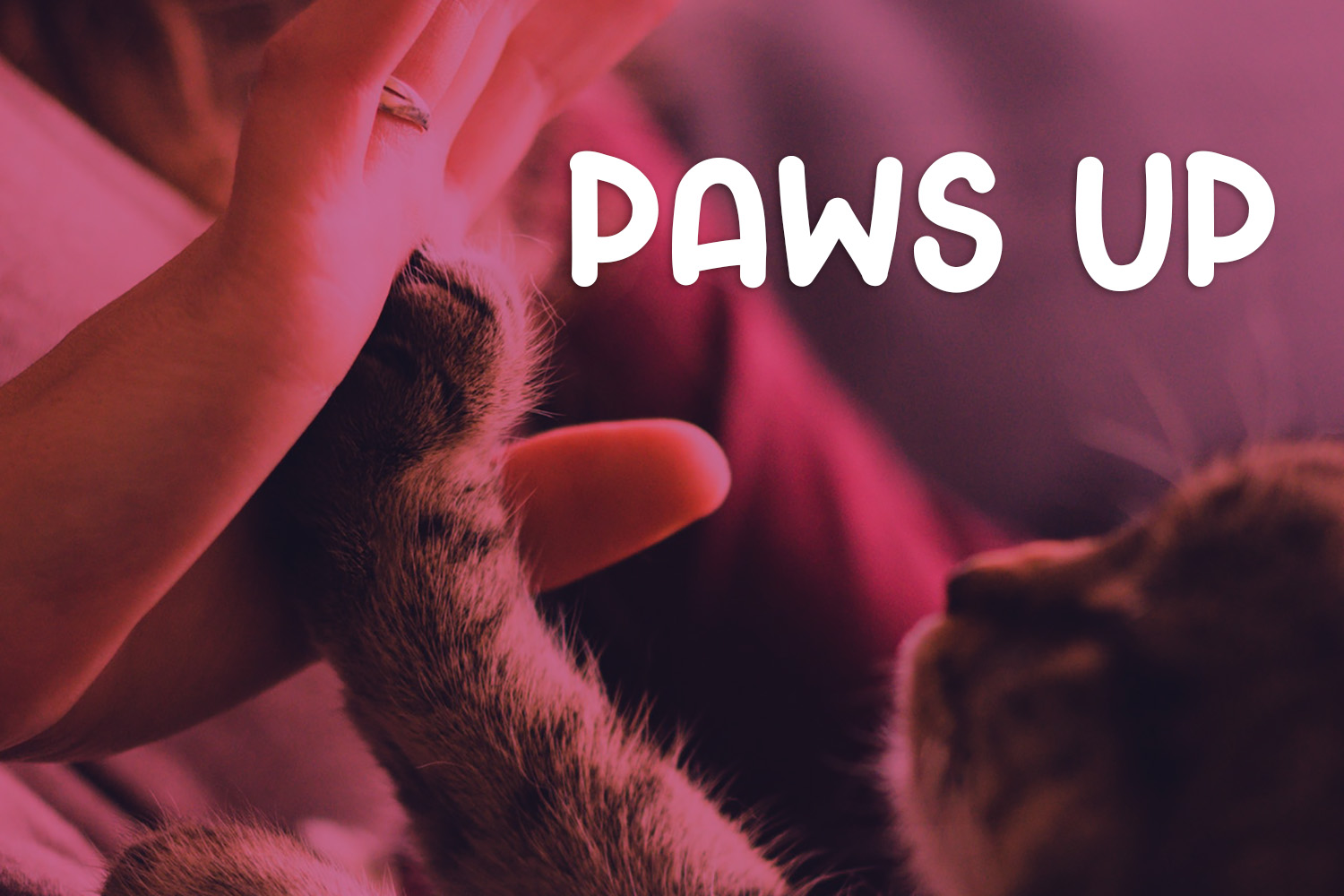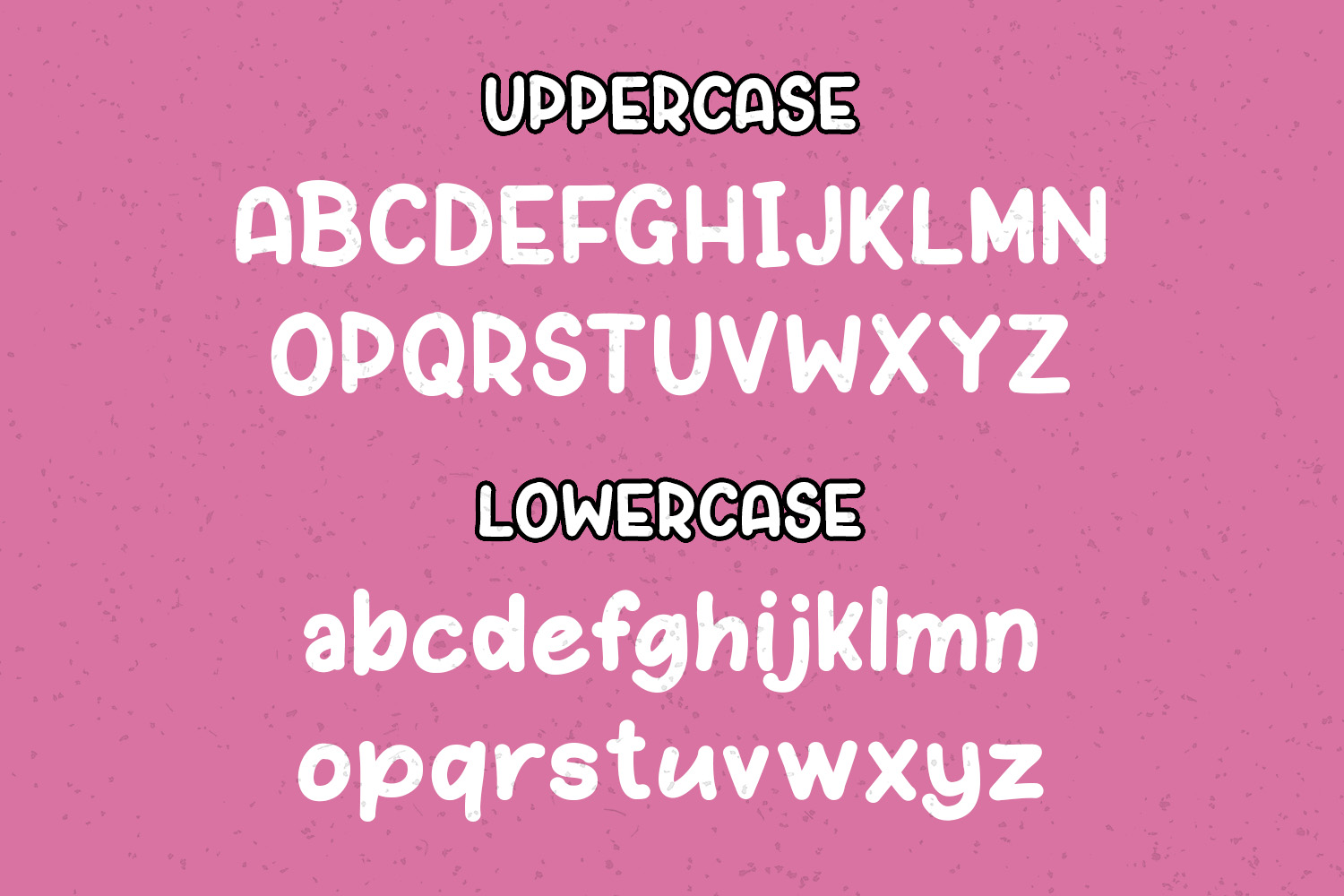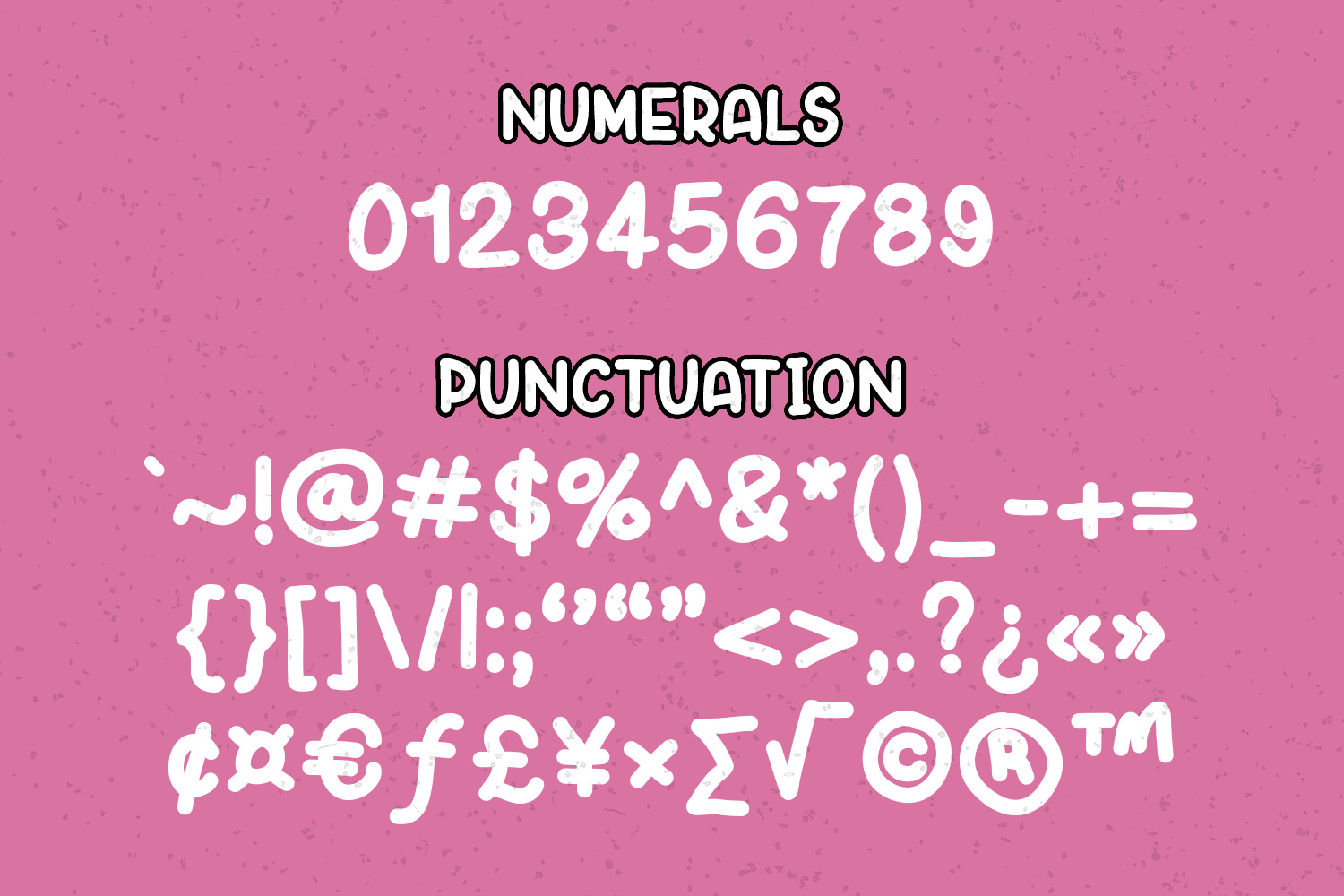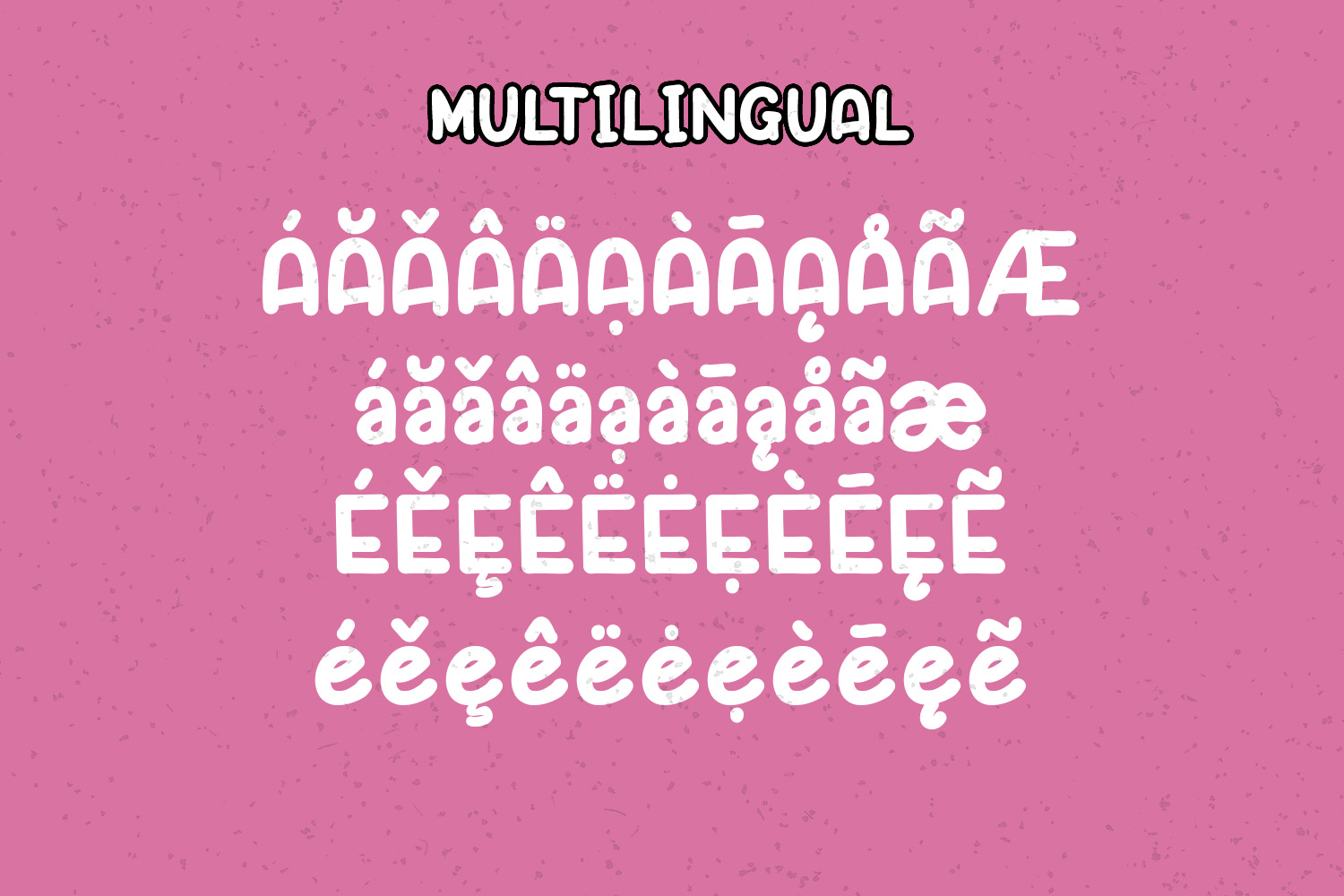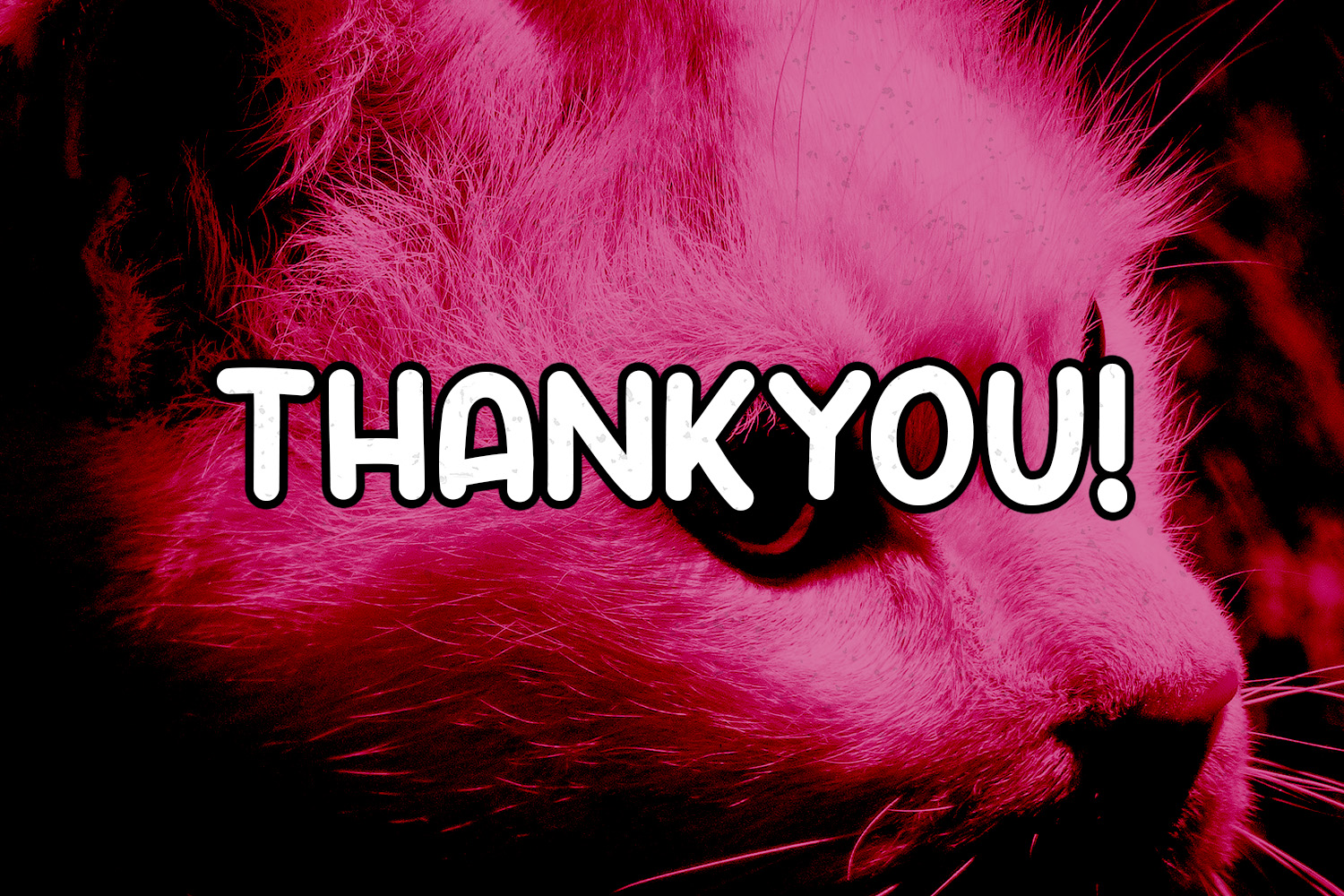
Crafty Cat Font: A Fun and Curious Font for Playful Designs
Are you a designer or crafter looking for a font that can add a touch of playfulness to your projects? Look no further than the Crafty Cat font! This fun and curious font is perfect for creating eye-catching designs that are sure to delight. In this article, we’ll take a closer look at the Crafty Cat font, its features, and how you can use it to take your designs to the next level.
What is Crafty Cat Font?
Crafty Cat is a digital font designed specifically for creative projects. Its playful and whimsical design makes it perfect for a wide range of applications, from crafting and scrapbooking to graphic design and digital art. The font is characterized by its bold lines, rounded edges, and endearing cat-like features, making it a great choice for designers and crafters who want to add a personal touch to their work.
Key Features of Crafty Cat Font
• Playful Design: Crafty Cat font features a playful design with bold lines and rounded edges, making it perfect for creating eye-catching designs.
• Curious Characters: Each character in the Crafty Cat font has a unique and curious design, adding a touch of personality to your text.
• Easy to Read: Despite its playful design, the Crafty Cat font is easy to read, making it perfect for use in a wide range of applications.
• Versatile: The Crafty Cat font can be used in a variety of projects, from digital art and graphic design to crafting and scrapbooking.
How to Use Crafty Cat Font in Your Designs
Using the Crafty Cat font in your designs is easy! Here are a few ideas to get you started:
• Crafting and Scrapbooking: Add a personal touch to your scrapbook pages and craft projects with the Crafty Cat font. Use it to create titles, captions, and other text elements that are sure to stand out.
• Graphic Design: Use the Crafty Cat font in your graphic design projects to add a touch of playfulness and personality. It’s perfect for creating logos, brochures, and other marketing materials.
• Digital Art: The Crafty Cat font is a great addition to any digital art project. Use it to create titles, captions, and other text elements that add a touch of whimsy to your artwork.
Tips for Getting the Most Out of Crafty Cat Font
Here are a few tips for getting the most out of the Crafty Cat font:
• Experiment with Colors: The Crafty Cat font looks great in a variety of colors. Experiment with different colors and combinations to find the one that works best for your design.
• Mix and Match: Don’t be afraid to mix and match the Crafty Cat font with other fonts and design elements. This can help create a unique and eye-catching design.
• Use it Sparingly: While the Crafty Cat font is playful and fun, it can be overwhelming if used too much. Use it sparingly to add a touch of personality to your design without overwhelming the viewer.
Font Name Crafty Cat Font
Author Kristy Hatswell
In conclusion, the Crafty Cat font is a fun and curious font that’s perfect for designers and crafters who want to add a touch of playfulness to their projects. With its bold lines, rounded edges, and endearing cat-like features, it’s sure to delight. Whether you’re working on a crafting, scrapbooking, graphic design, or digital art project, the Crafty Cat font is a great choice. So why not give it a try and see what kind of creative and eye-catching designs you can come up with?
• What type of font is Crafty Cat? Crafty Cat is a digital font designed for use in creative projects.